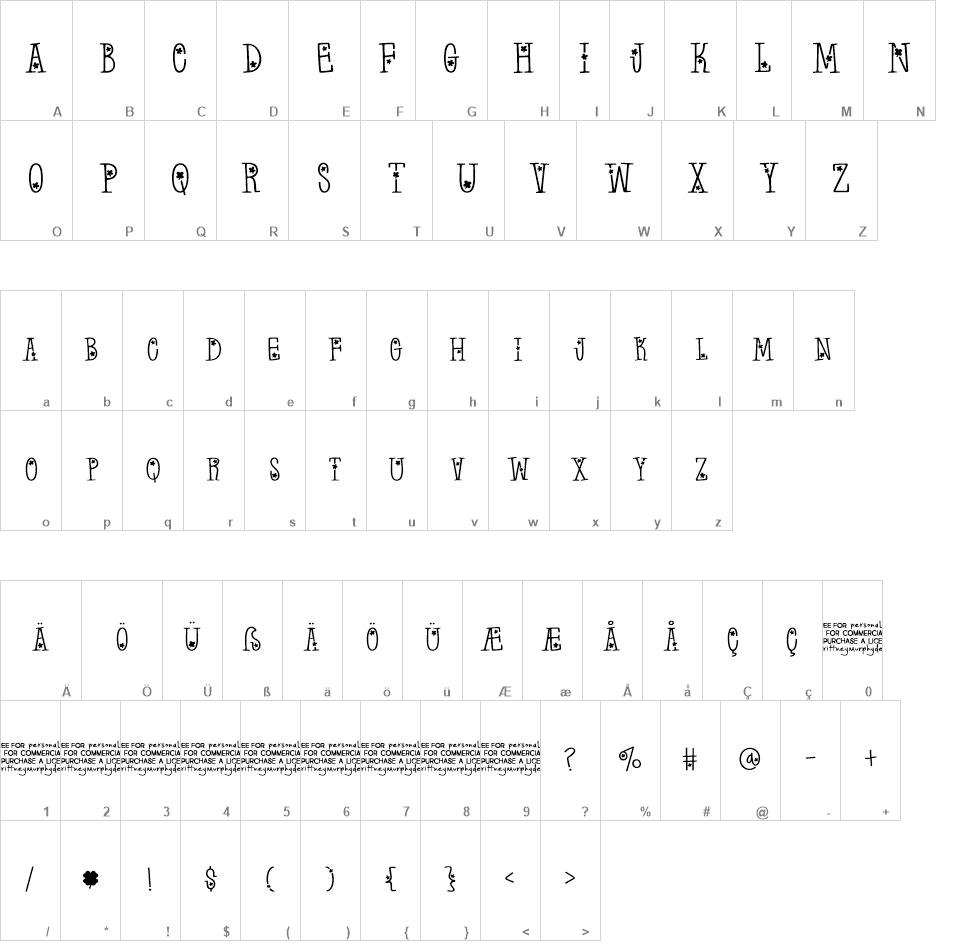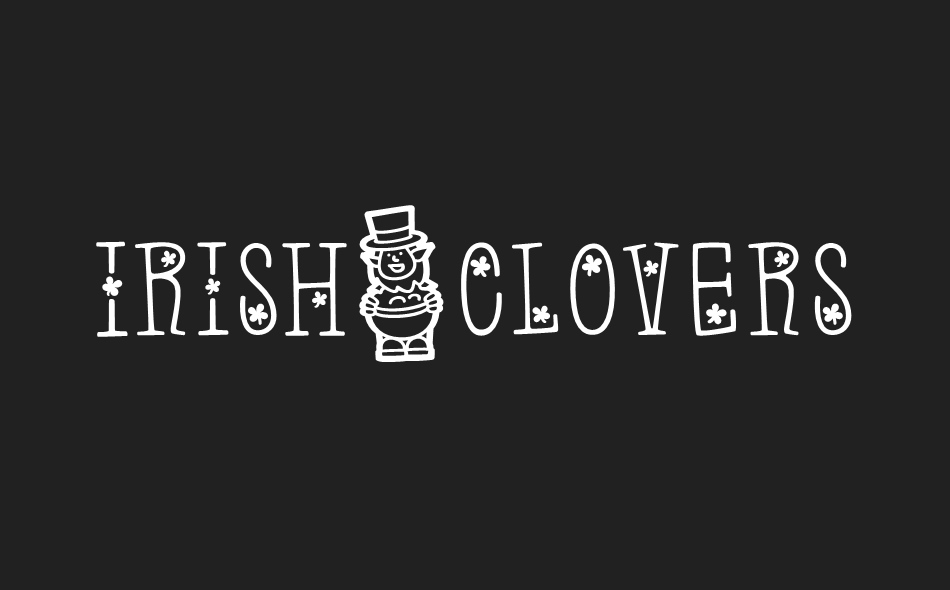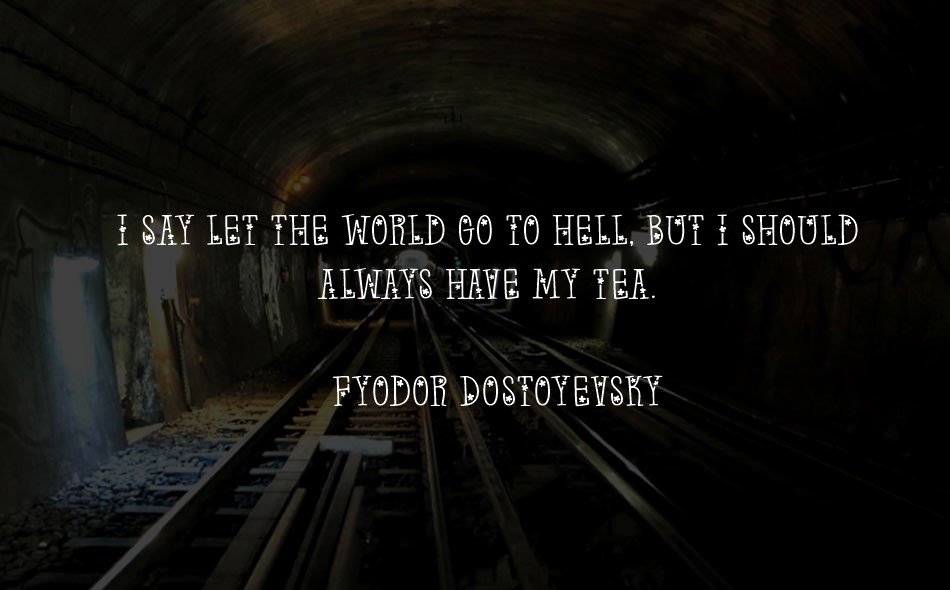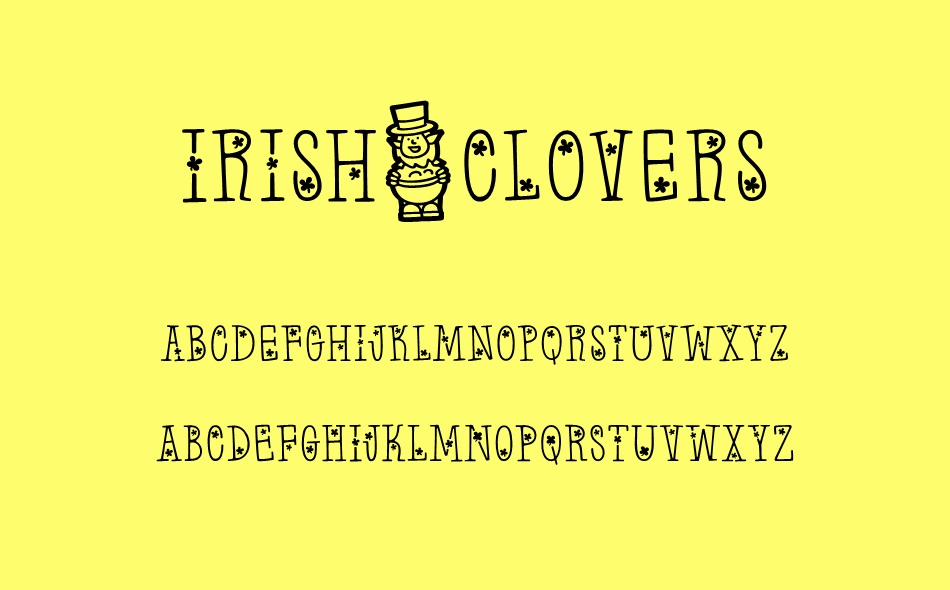
Irish Clovers font
A fun, St. Patricks Day font! Use the circumflex ^ for the leprechaun, use the asterisk * for the big clover, and use the bullet for the small clover.